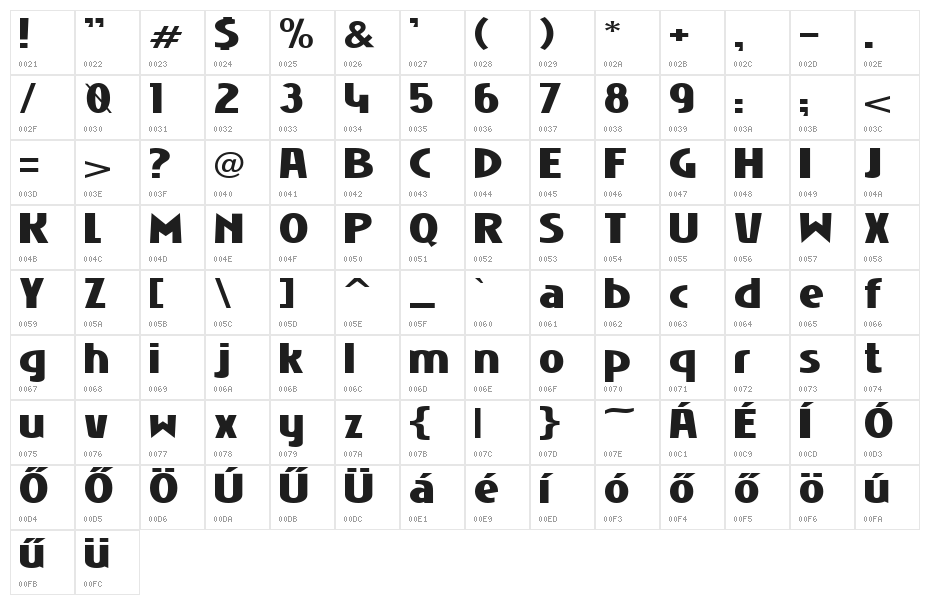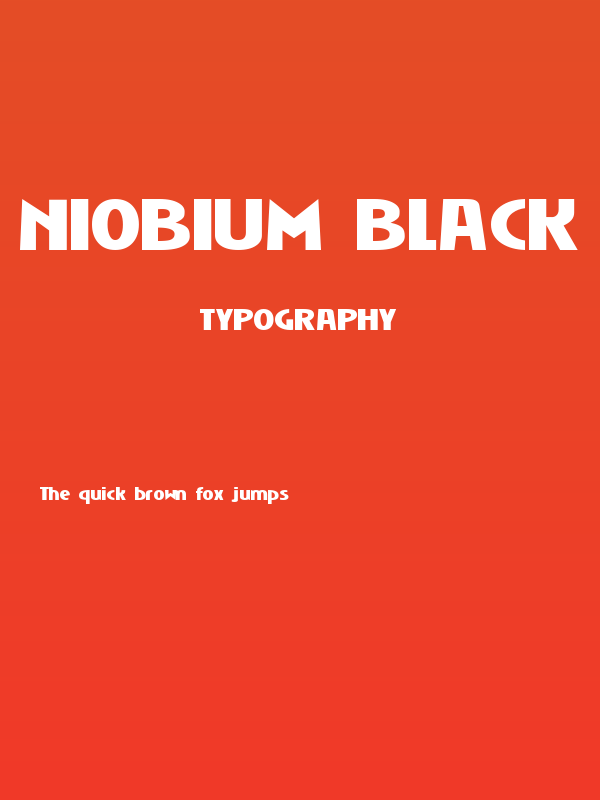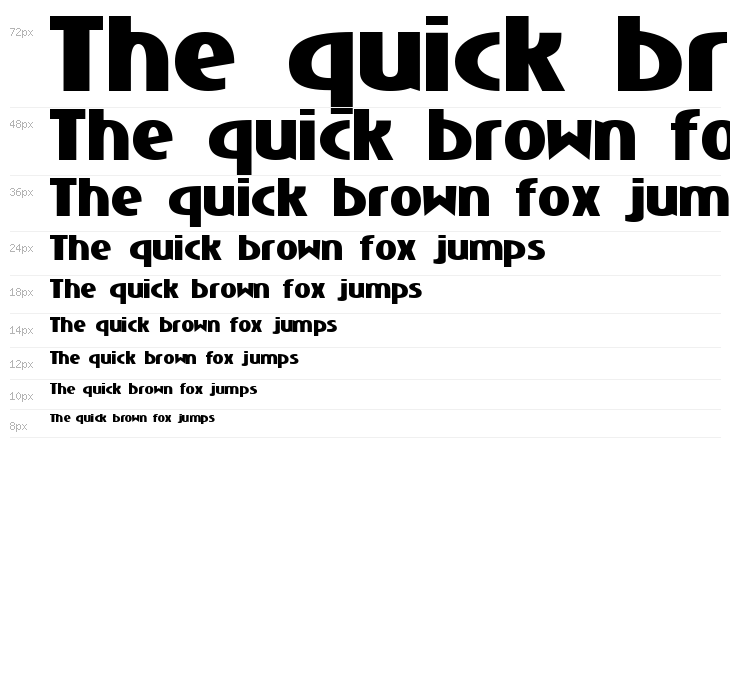
Niobium Black Font
Niobium Black Description
This font features bold, geometric letterforms with a strong presence. The uppercase letters are characterized by their solid, block-like appearance, while the lowercase letters maintain a consistent weight and structure. The numerals are clear and easily distinguishable, complementing the overall bold aesthetic. Special characters are designed to match the robust style, making them suitable for various design applications. The font's clean lines and modern look make it versatile for both digital and print media.
| Proposed Projects | Ideal for branding, headlines, posters, and any project requiring a bold statement. |